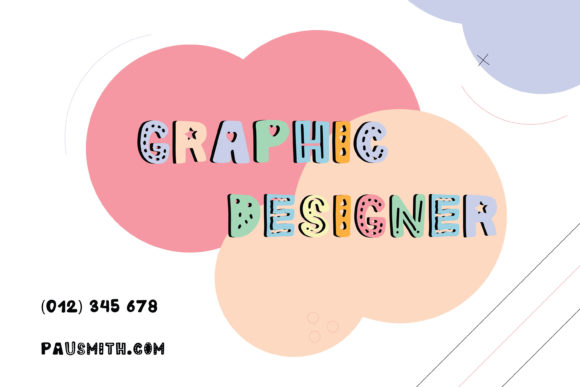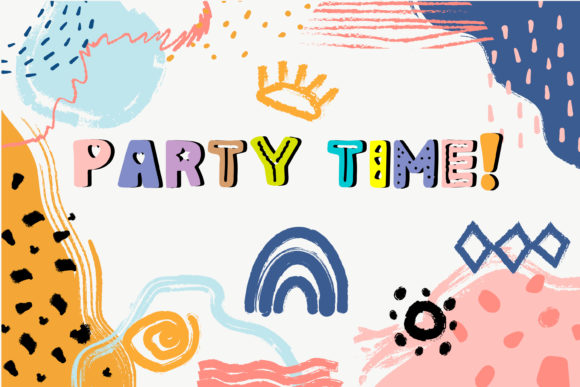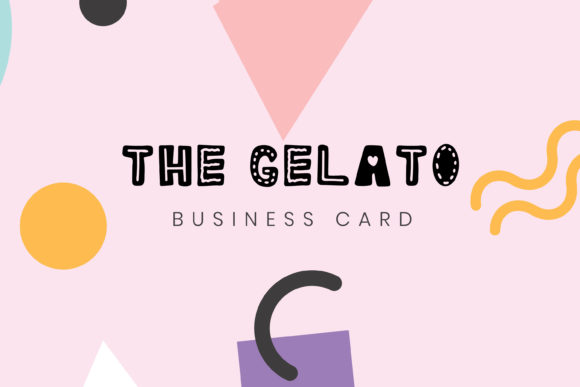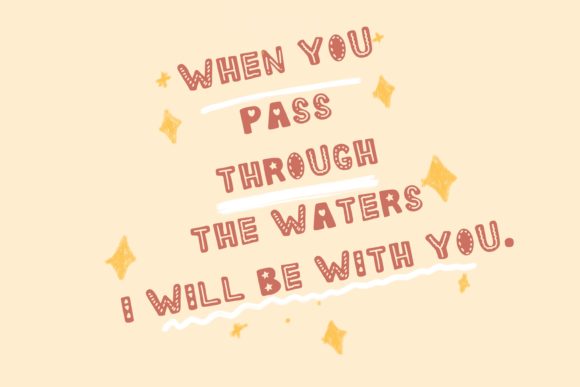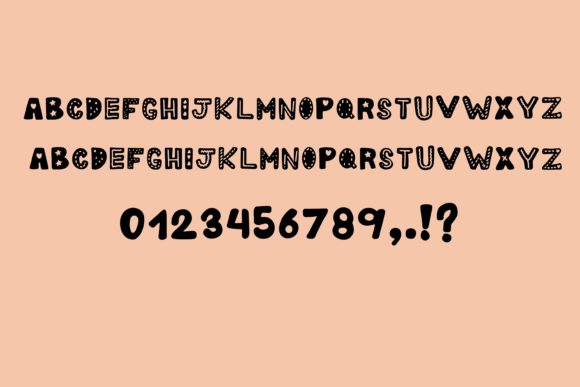
Candy Bomb Font: The Sweetest Addition to Your Design Projects
Are you looking for a font that embodies playfulness and authenticity? Do you want to add a touch of fun and whimsy to your designs? Look no further than the Candy Bomb Font! This cute and colorful display font is perfect for any children’s activity or school project, and is sure to make your designs come alive.
What is Candy Bomb Font?
Candy Bomb Font is a chunky lettered font that is designed to bring a smile to your face. Its bold and colorful design makes it perfect for eye-catching headlines, titles, and captions. The font’s playful and authentic feel makes it ideal for designs that require a touch of fun and personality.
Features of Candy Bomb Font
- Cute and Colorful Design: Candy Bomb Font features a vibrant and colorful design that is sure to grab attention.
- Chunky Lettering: The font’s chunky lettering makes it perfect for display purposes, such as headlines and titles.
- Playful and Authentic Feel: The font’s playful and authentic feel makes it ideal for designs that require a touch of fun and personality.
- Easy to Read: Despite its bold design, Candy Bomb Font is easy to read, making it perfect for designs that require a clear and concise message.
Uses of Candy Bomb Font
Candy Bomb Font is a versatile font that can be used in a variety of design projects, including:
- Children’s Activities: The font’s playful and colorful design makes it perfect for children’s activities, such as worksheets, coloring pages, and activity sheets.
- School Projects: Candy Bomb Font is ideal for school projects, such as posters, presentations, and reports.
- Party Invitations: The font’s fun and festive design makes it perfect for party invitations, such as birthday parties, baby showers, and graduations.
- Social Media Graphics: Candy Bomb Font can be used to create eye-catching social media graphics, such as Facebook posts, Instagram stories, and Twitter headers.
Tips for Using Candy Bomb Font
Here are some tips for using Candy Bomb Font in your design projects:
- Use it for Headlines and Titles: Candy Bomb Font is perfect for headlines and titles, as its bold design makes it easy to read and attention-grabbing.
- Pair it with Other Fonts: Candy Bomb Font can be paired with other fonts to create a unique and visually appealing design.
- Experiment with Colors: The font’s colorful design makes it perfect for experimenting with different colors and color combinations.
- Use it for Kids’ Designs: Candy Bomb Font is ideal for designs that are intended for kids, such as children’s activities, party invitations, and kids’ clothing.
Candy Bomb Font is a fun and playful font that is perfect for designers and crafters who want to add a touch of whimsy and personality to their designs. Its bold and colorful design makes it ideal for eye-catching headlines, titles, and captions, and its playful and authentic feel makes it perfect for designs that require a touch of fun and personality. Whether you’re working on a children’s activity, school project, or social media graphic, Candy Bomb Font is sure to make your design come alive!